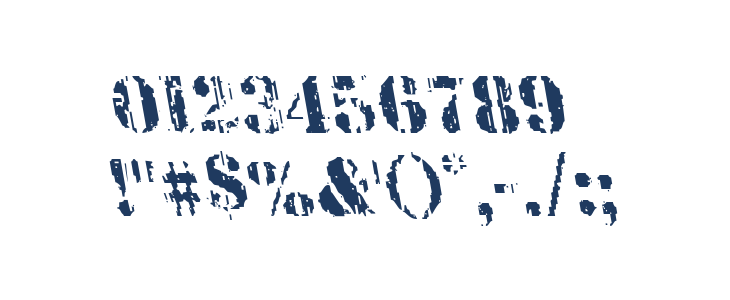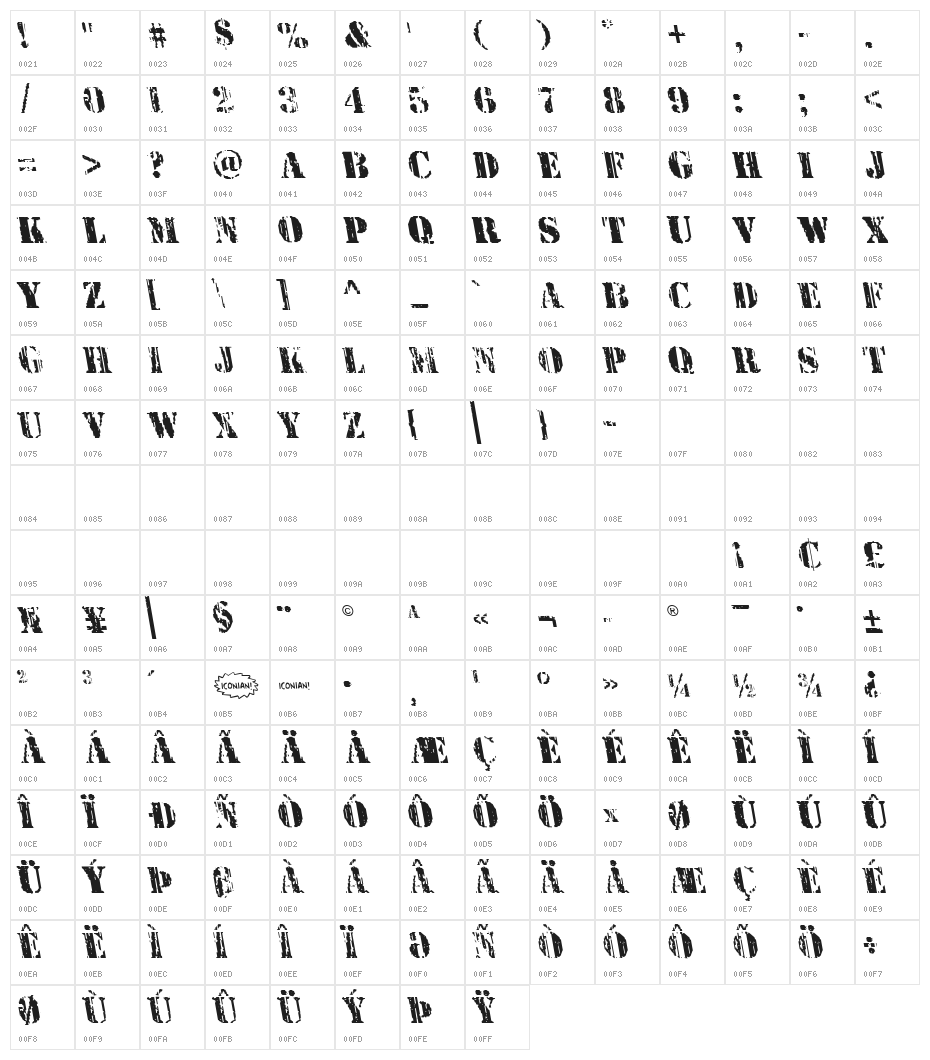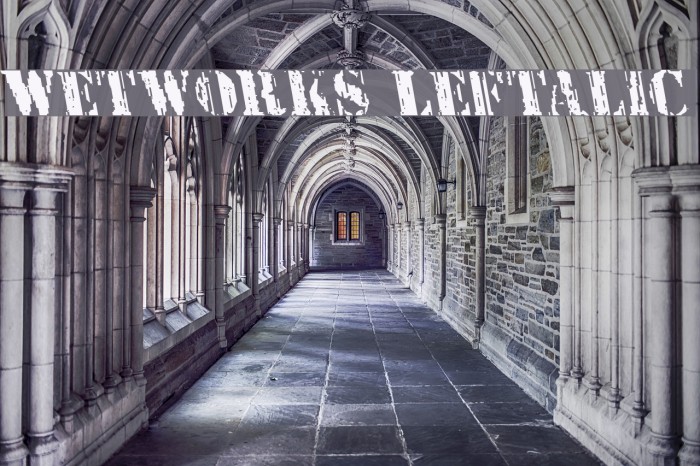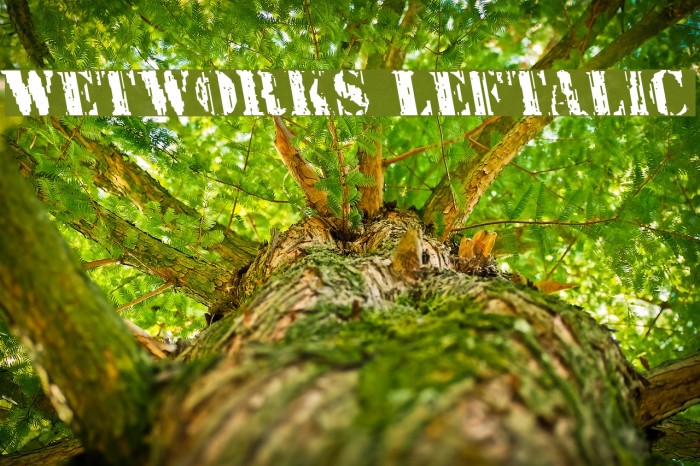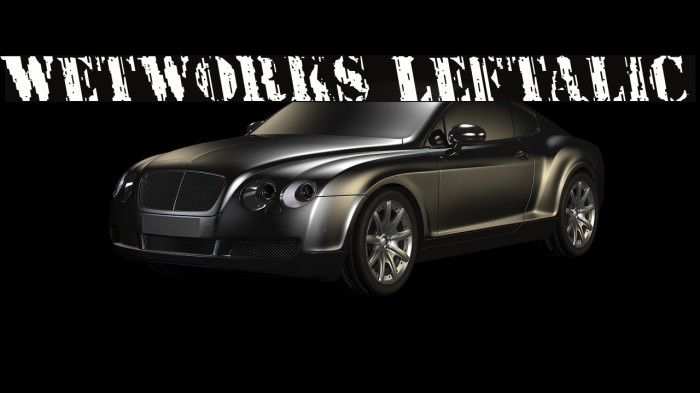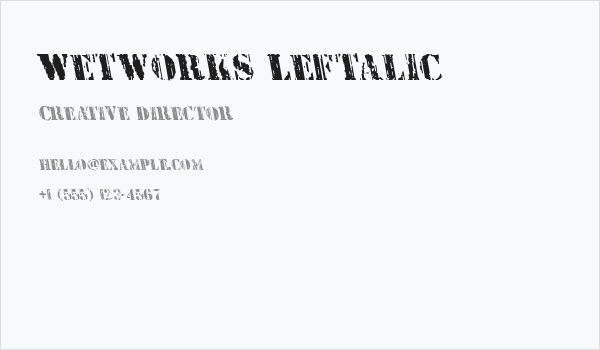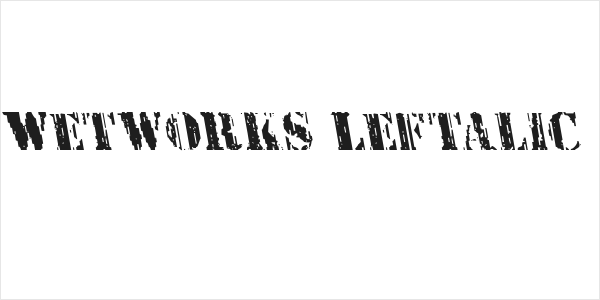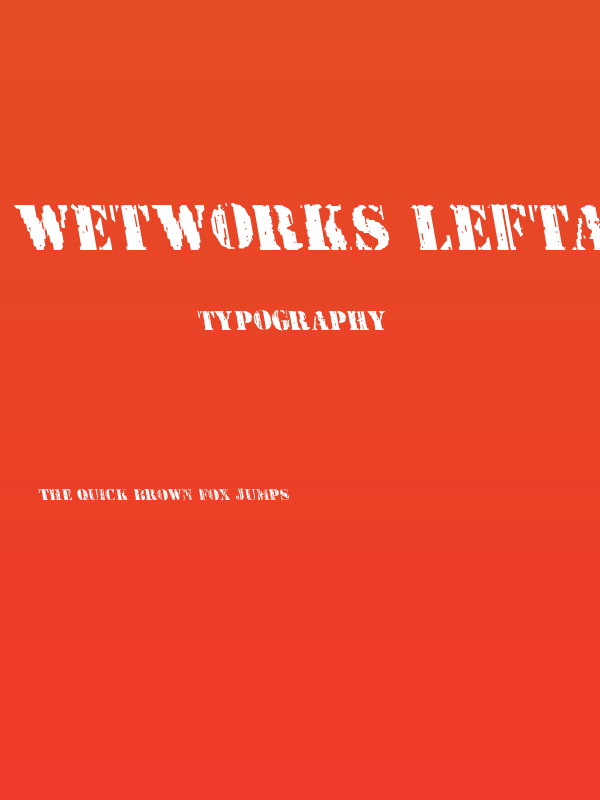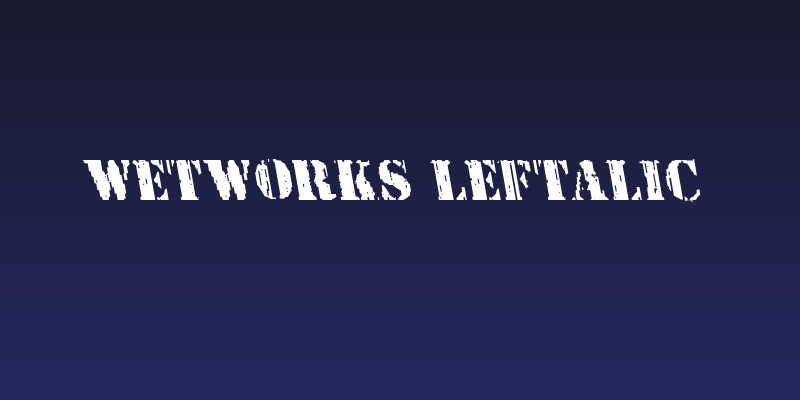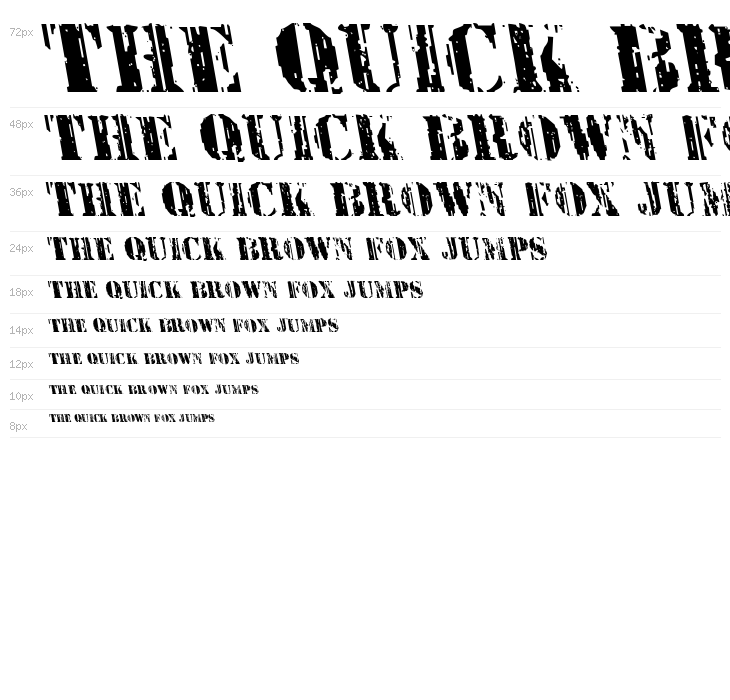
Wetworks Leftalic Font
Wetworks Leftalic Description
This font features a rugged, distressed style with a stencil-like appearance. Each character is bold and heavily textured, giving the impression of wear and tear, as if it has been weathered by time or elements. The uppercase and lowercase letters maintain a consistent design, with jagged edges and irregular gaps that add to its gritty aesthetic. Numbers and special characters follow the same pattern, ensuring a cohesive look across all glyphs. This font is ideal for projects that require a bold, impactful statement with an edgy, industrial feel.
| Proposed Projects | Ideal for urban-themed posters, album covers, graffiti art, and branding that requires a gritty, industrial edge. |